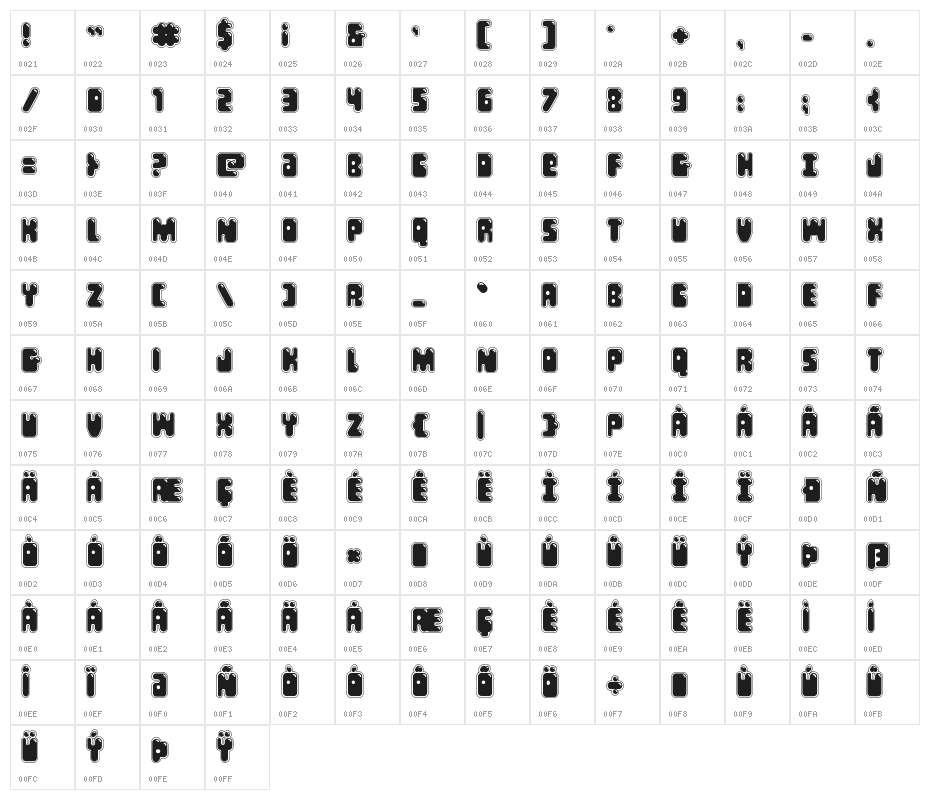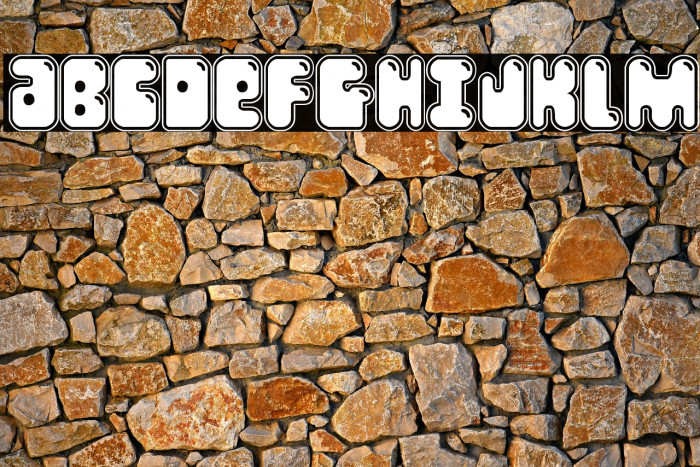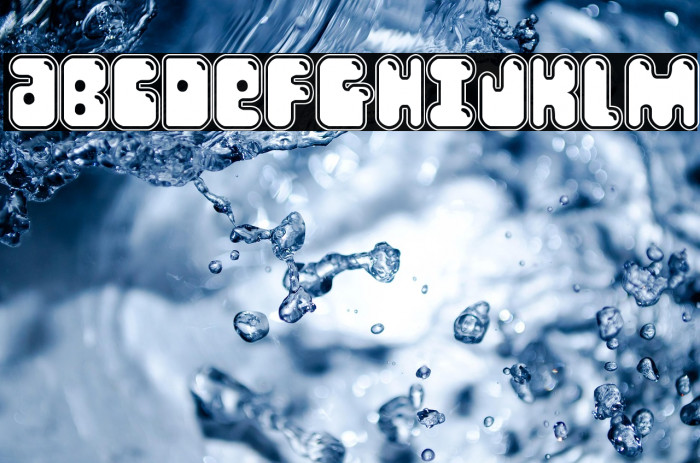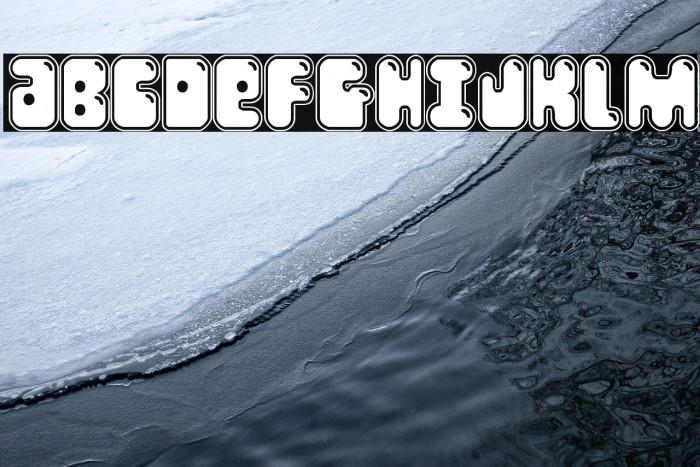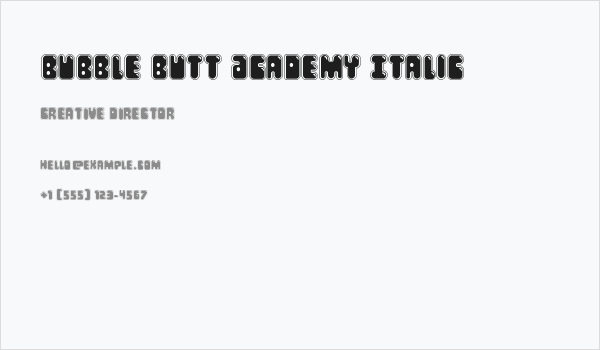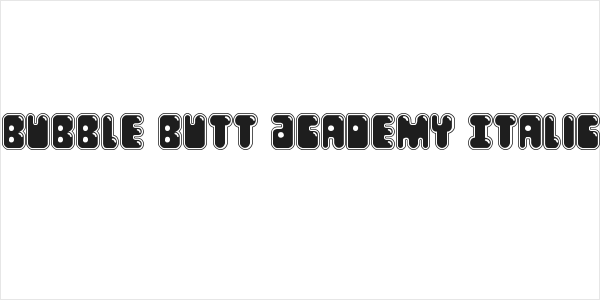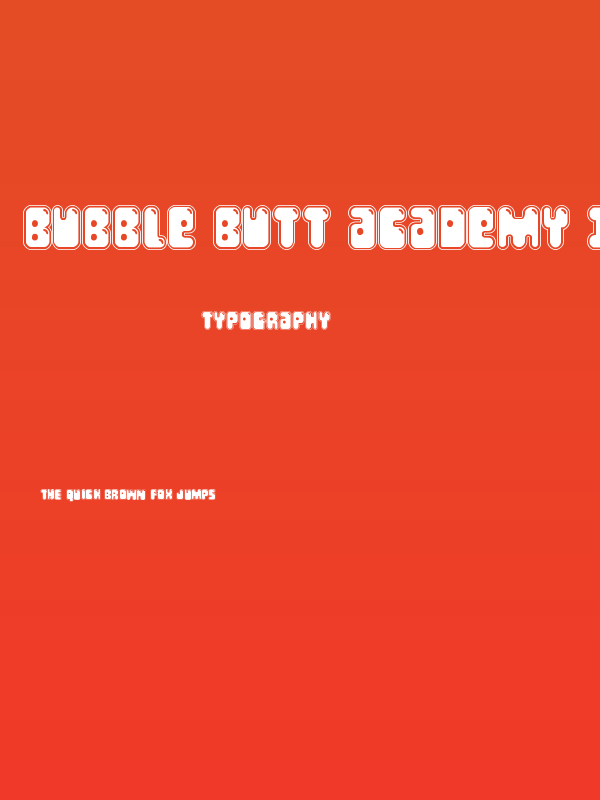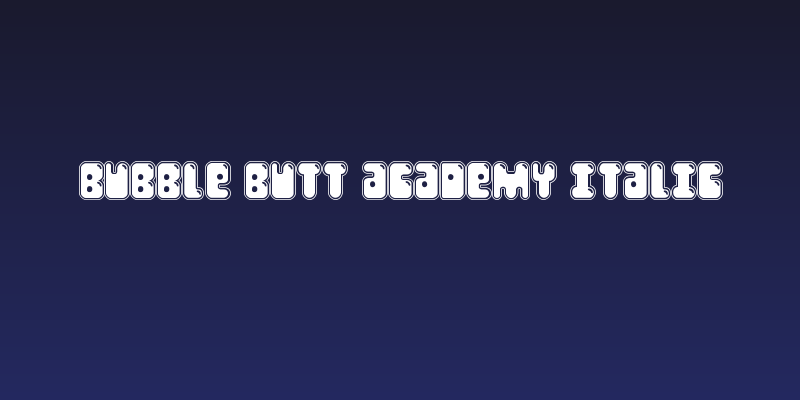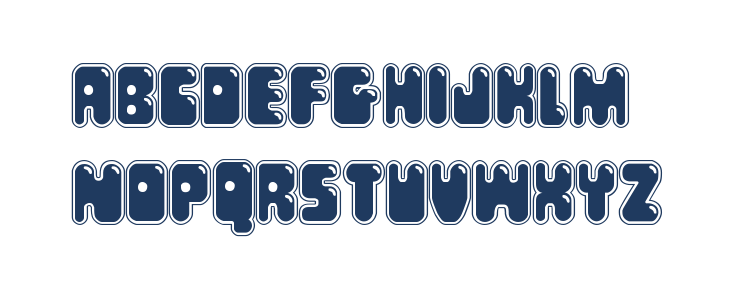
Bubble Butt Academy Italic Font
Bubble Butt Academy Italic Description
This playful and bold font features a unique bubble-like design with thick, rounded edges and a hollow center. The characters are evenly spaced and maintain a consistent width, giving them a cohesive appearance. The font's style is reminiscent of retro or pop art aesthetics, making it ideal for projects that require a fun and eye-catching look. The uppercase and lowercase letters are distinct yet harmonious, and the numerals and special characters maintain the same bubbly style, ensuring versatility across different uses.
| Overall Style | Retro, Playful |
| Proposed Projects | Ideal for children's book covers, playful branding, party invitations, and retro-themed designs. |